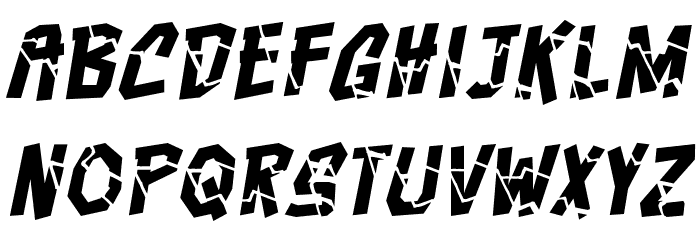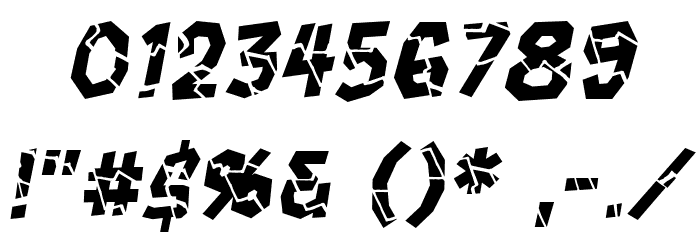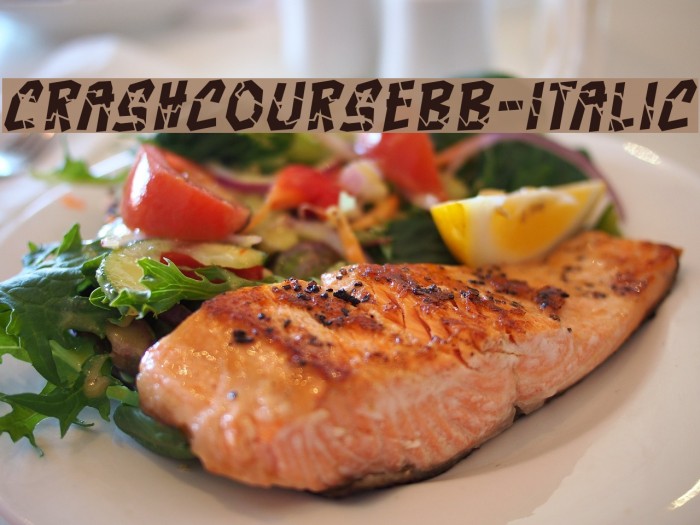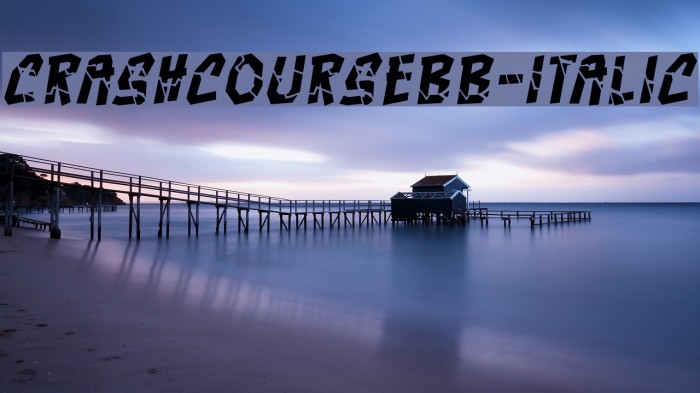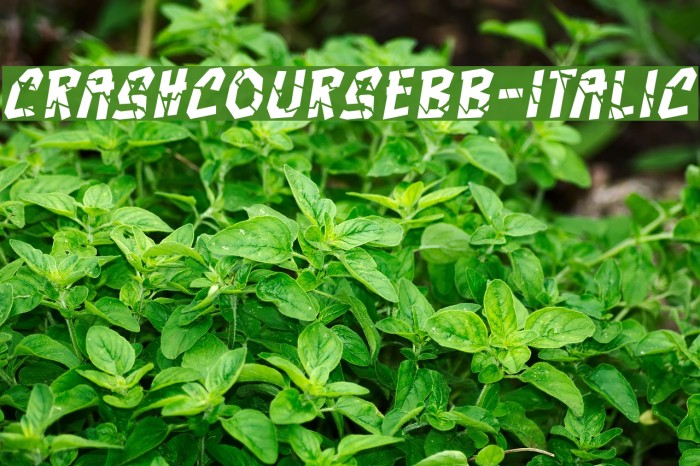
CrashcourseBB-Italic Font
This font features a bold, angular design with a shattered, fragmented appearance, giving it a dynamic and edgy feel. The characters are italicized, adding a sense of motion and urgency. Each letter and number is composed of sharp, jagged edges, creating a visually striking and modern aesthetic. The font maintains consistent spacing between characters, ensuring readability despite its unconventional style. It is well-suited for projects that require a bold statement or a futuristic, rebellious vibe.
A bold, angular, and fragmented italic font with a dynamic and edgy style.
- Proposed Projects: Ideal for music album covers, video game titles, posters, and branding for edgy or modern products.